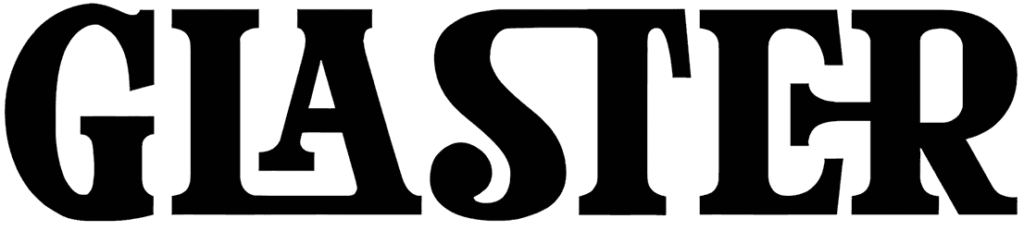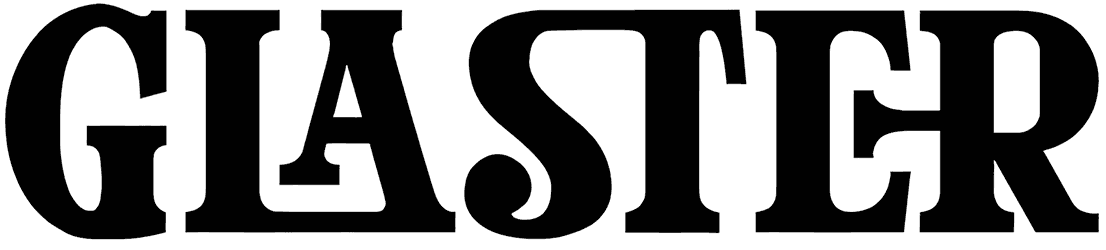
Glaster Font
A good ligature font, such as Glaster, has the real ability to provoke a psychological reaction in the audience’s minds and persuades them to follow your artwork, including wood engravings, brochures, diplomas, invitations, or billboards. This masterpiece comes with rounded and classy characters, so it would lead to a feeling of trustworthiness, confidence, or respect.